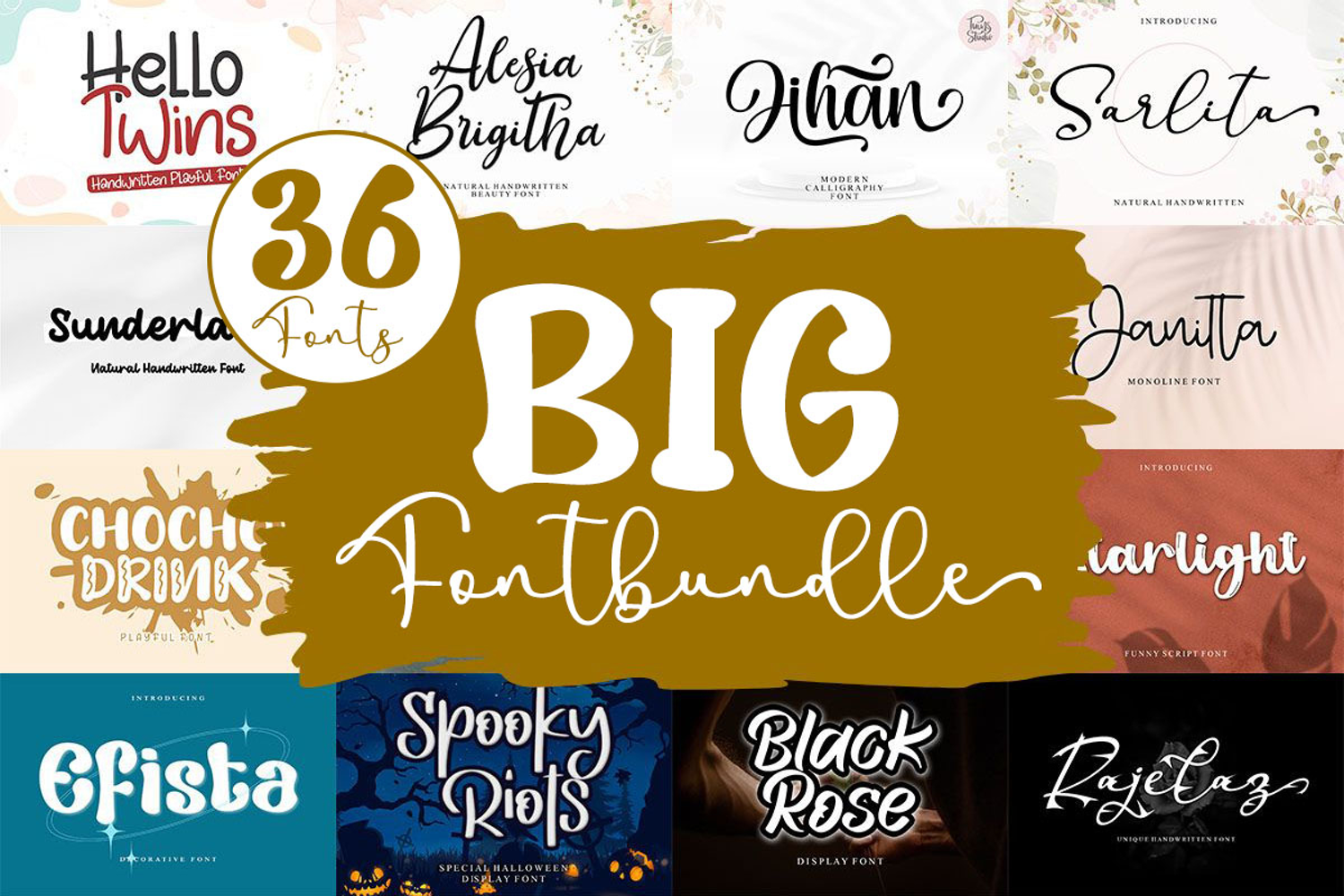
Big Fontbundle
The "BIG Fontbundle" offers a diverse and comprehensive collection typefaces, designed to cater to a wide range of design needs. Featuring a mix of handwritten, playful, script, and display fonts. Whether for branding, graphic design, web development, or creative projects, the bundle provides enhances readability and aesthetic appeal. With 36 unique fonts included, it allows designers to experiment with different styles, ensuring a perfect fit for any design concept or creative vision.
**Features:**
* Support multilingual; ä ö ü Ä Ö Ü ß ¿ ¡
* Numerals & Punctuation
* Alternate
* Swash
* Titling
* Lowercase and Uppercase